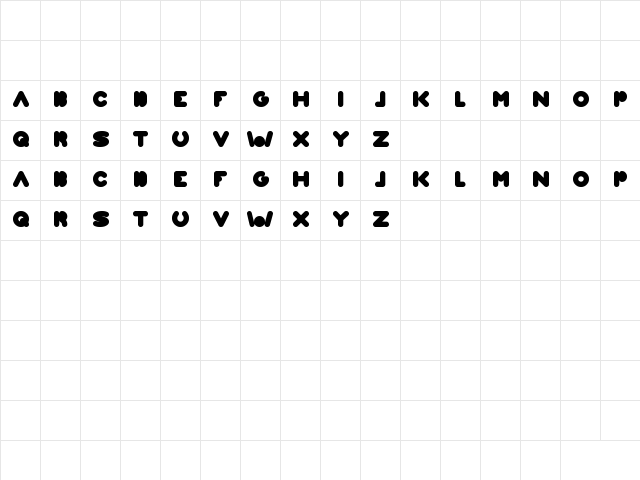
WEKNOW WORLD Regular Free Font
WEKNOW WORLD Regular
Design Context for WEKNOW WORLD
WEKNOW WORLD is a composed and adaptable typeface that performs quietly and consistently across a wide range of design contexts.
Pro Tip: Use WEKNOW WORLD in both headline and body roles to test its range before committing to a single application.